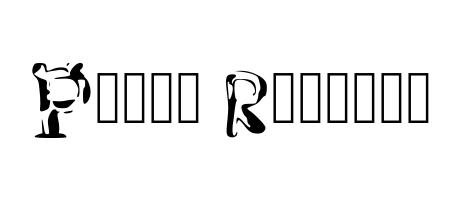
Piggy
By yoshifat77
Piggy Regular is a playful, slightly quirky font. Its uppercase letters are bold and slightly irregular, giving a handmade feel. The lowercase letters are not shown in the sample. The overall effect is friendly and informal, like a cartoon character's handwriting. The font's unique charm comes from the unevenness of its forms.